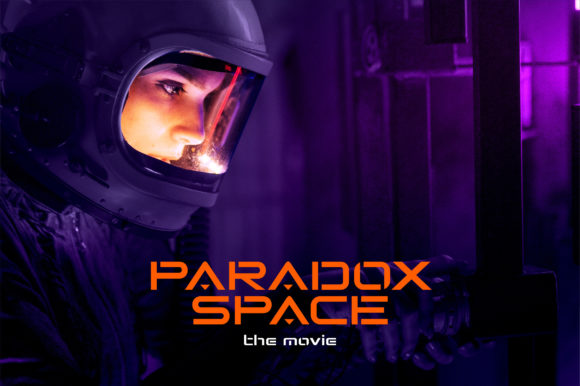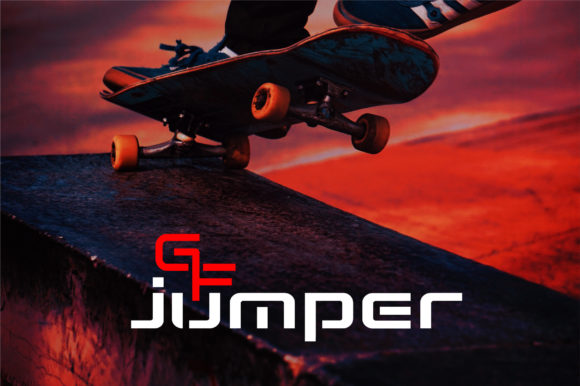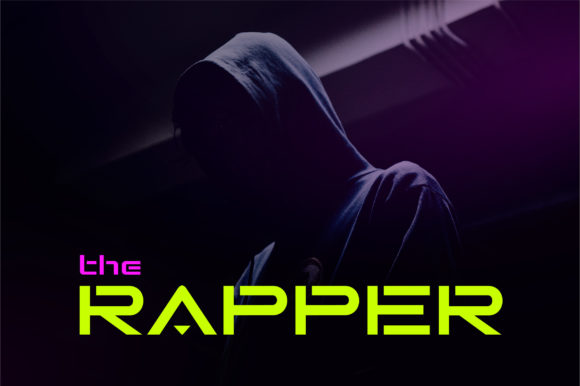
Introduction to Agker Font
Agker is a cool, bold display font.
This font is ideal for writing web designs, business cards, or pretty much anything else that requires a unique touch .
Key Features of Agker Font
Why Choose Agker Font?
Agker Font offers exceptional quality and versatility, making it a valuable addition to your design toolkit. Whether you’re creating for personal projects or commercial use, Agker Font delivers professional results.